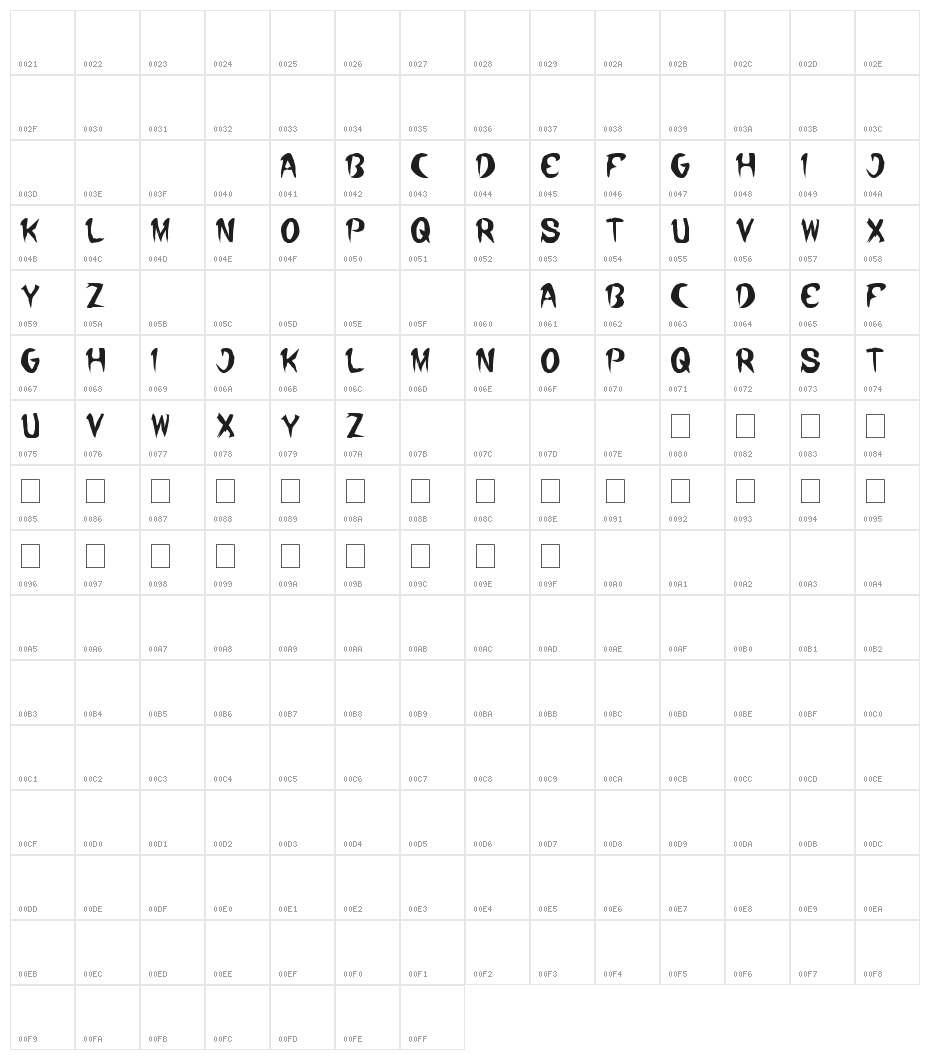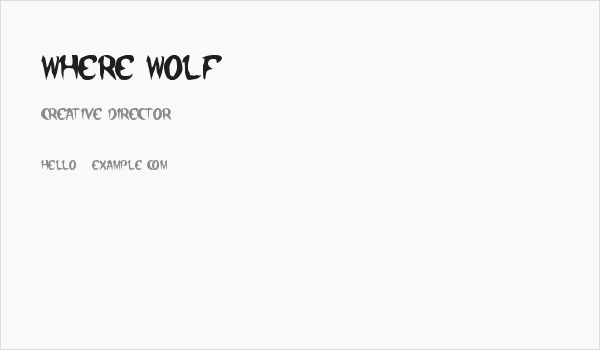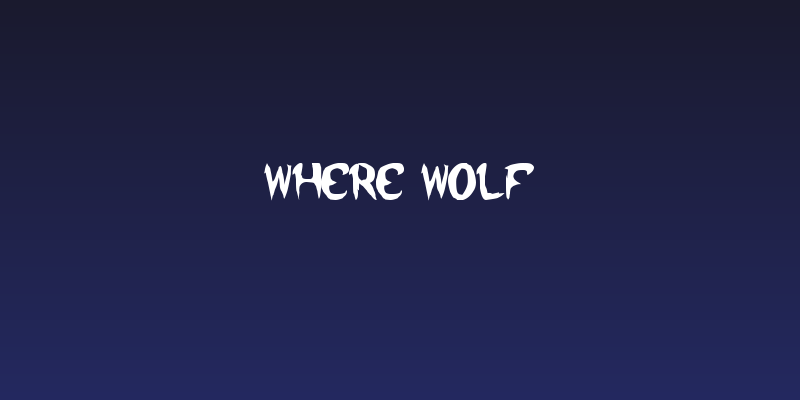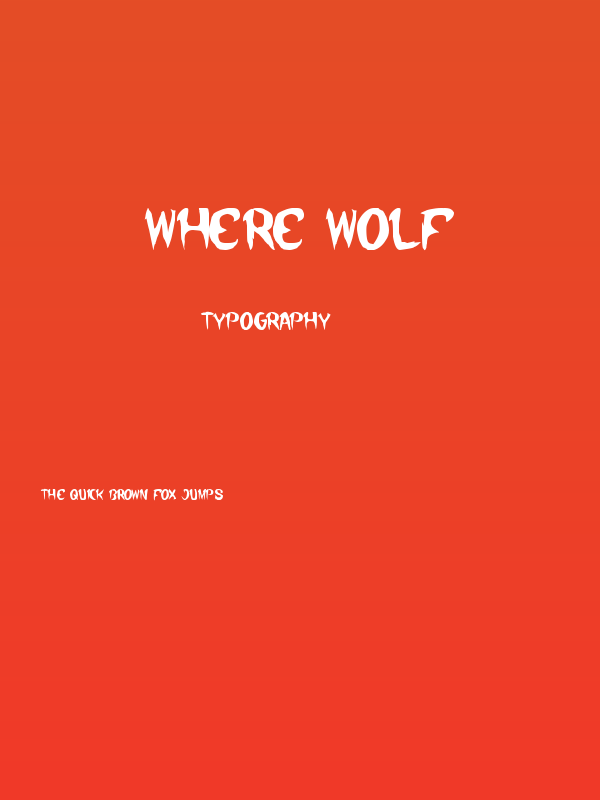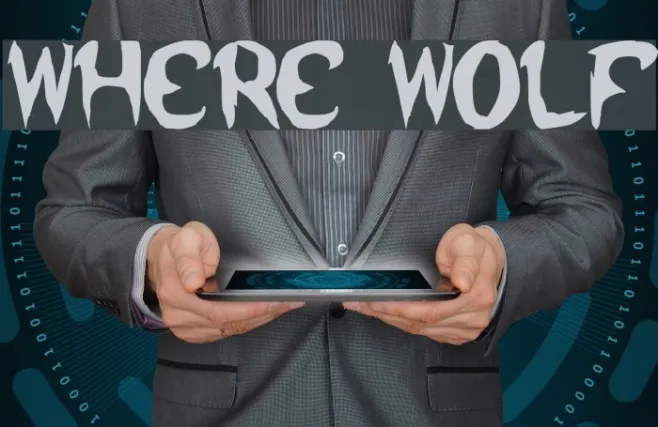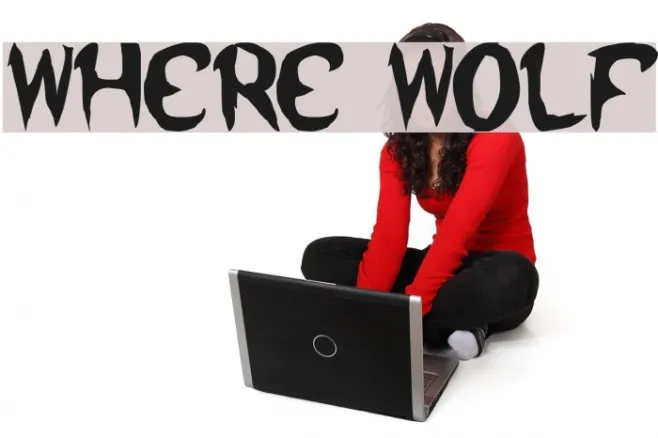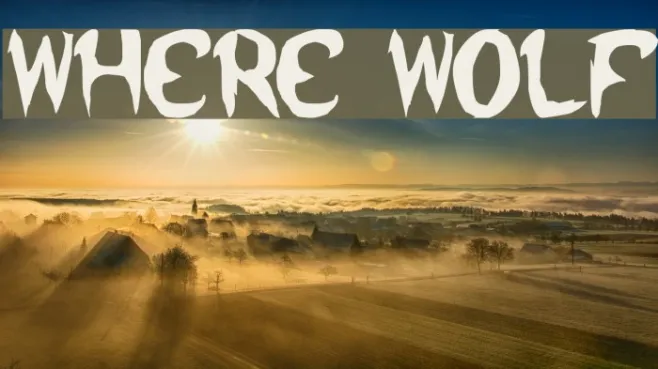
where wolf Font
where wolf Description
This font features a bold and aggressive style, reminiscent of claw marks or jagged edges, giving it a wild and untamed appearance. The characters are sharply defined with exaggerated serifs and pointed terminals, creating a sense of movement and energy. The uppercase letters are particularly striking, with a consistent height and width that maintain readability while emphasizing the font's unique aesthetic. The lowercase letters mirror this style, maintaining the same sharpness and dynamic form. This font is ideal for projects that require a dramatic and eye-catching design, such as horror-themed graphics or edgy branding.
| Proposed Projects | Ideal for horror-themed designs, edgy branding, posters, and Halloween events. |